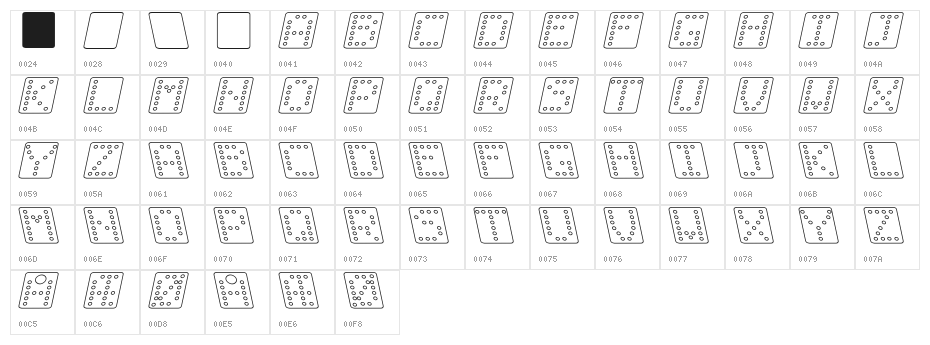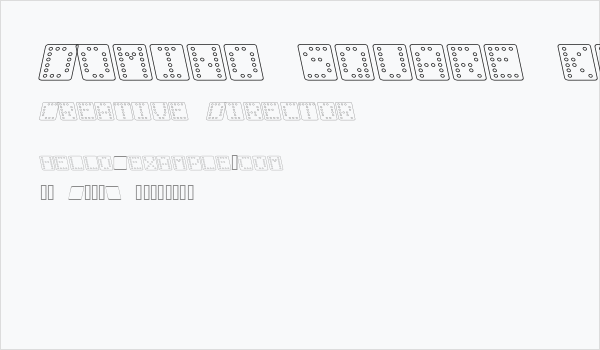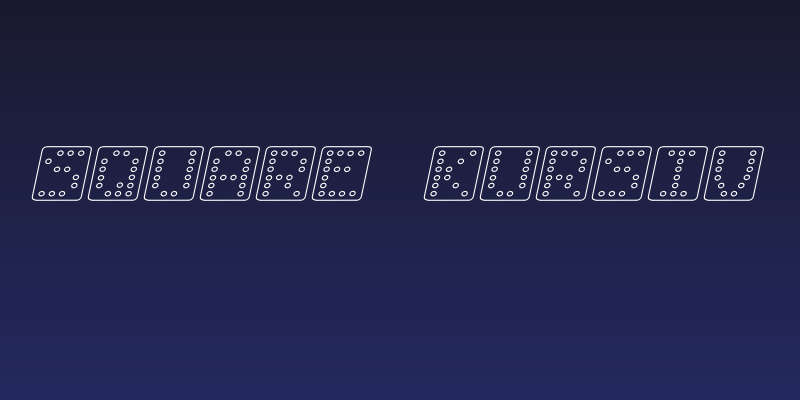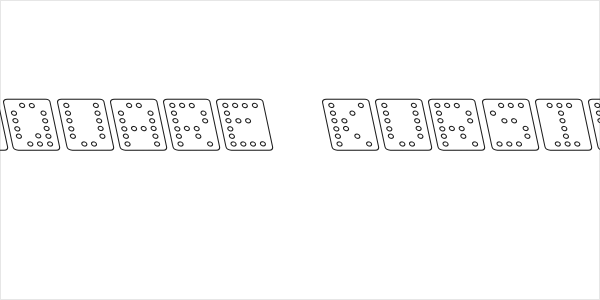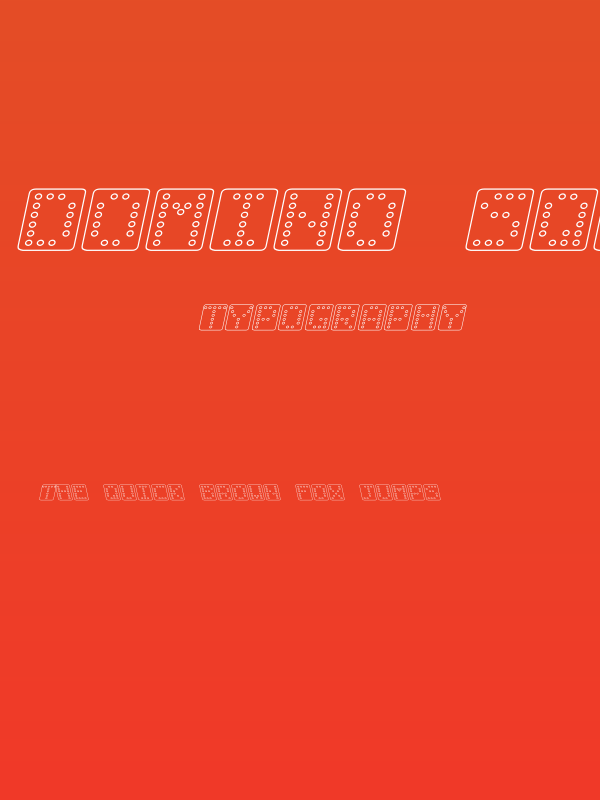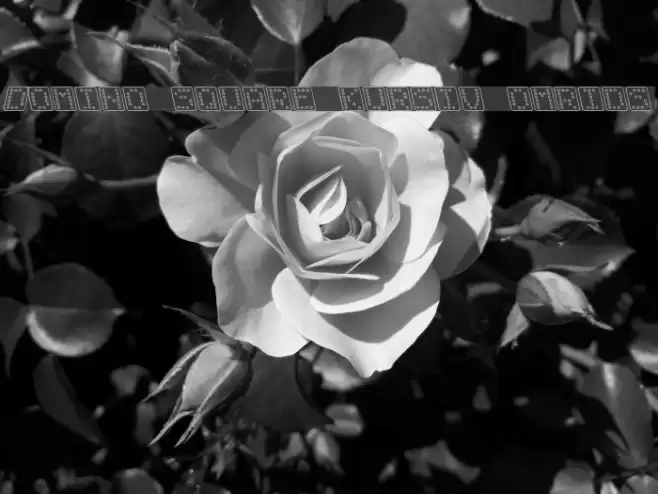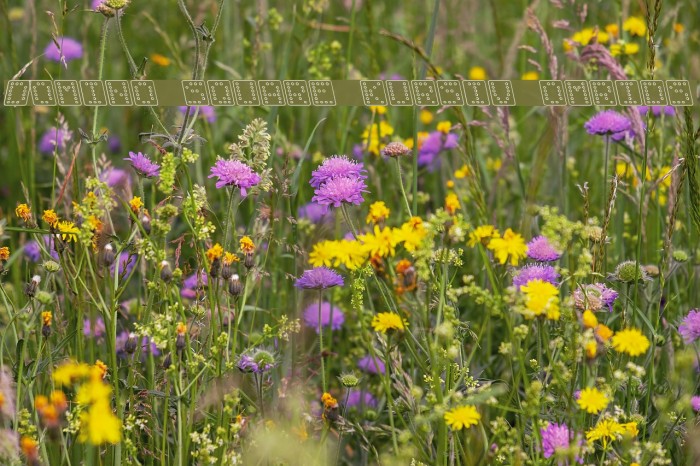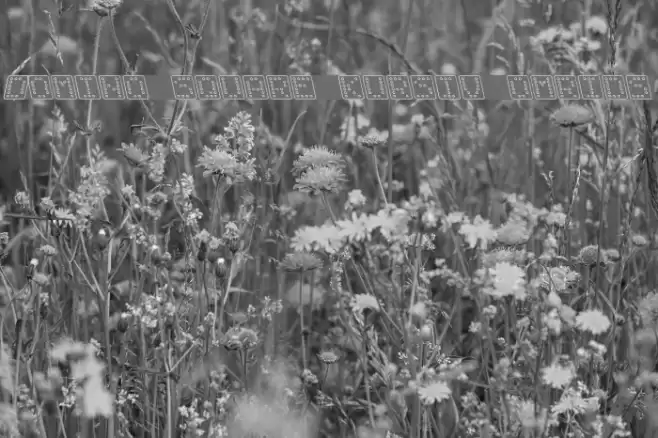
Domino square kursiv omrids Font
Domino square kursiv omrids Description
This font is a playful and creative design that mimics the appearance of domino tiles. Each character is represented as a domino piece, complete with dots that correspond to the letter or number. The outlines are clear and distinct, giving the font a unique and whimsical look. The characters are slightly tilted, adding a dynamic and informal touch. This font is perfect for projects that require a fun and engaging style, such as children's games, educational materials, or themed event invitations. The domino theme is consistent across all characters, making it a cohesive and visually appealing choice.
| Overall Style | Playful |
| Use Case | Logos, Headlines, Themed Designs |
| Proposed Projects | Ideal for children's games, educational materials, themed event invitations, and playful branding. |